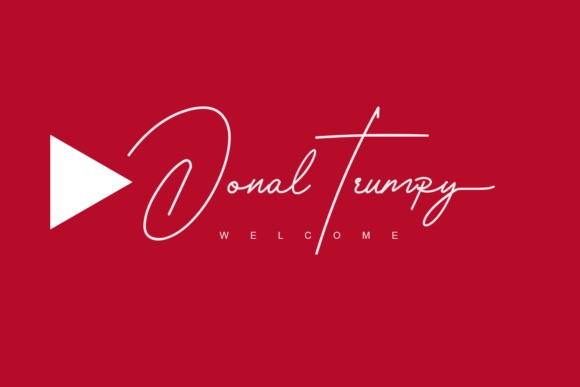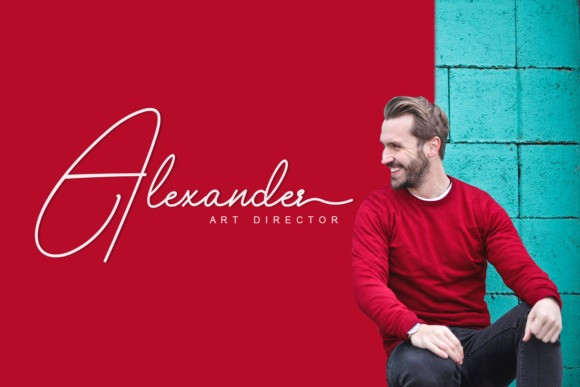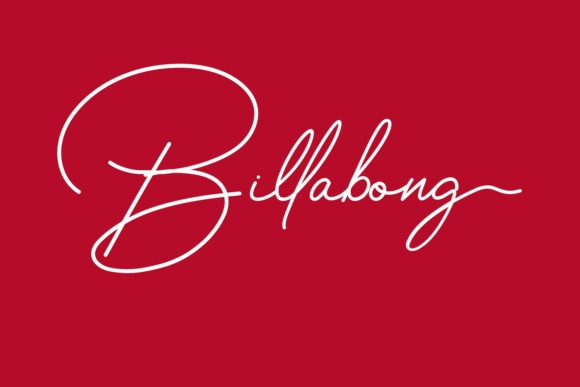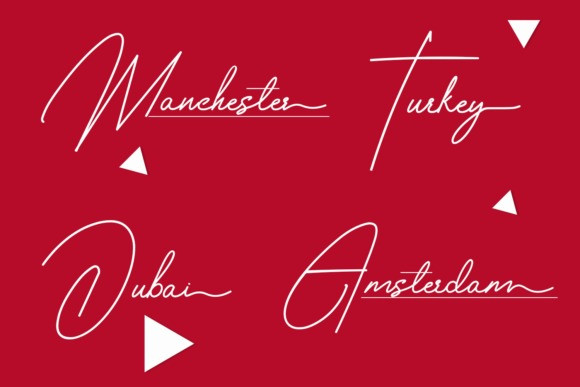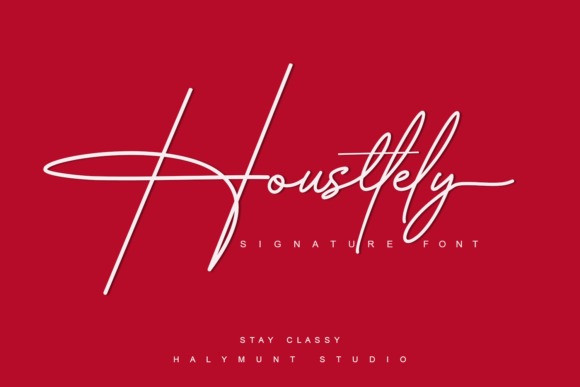
Housttely Signature Font
Say Hello Guy’s. Thank you for looking Housttely Font. This is an elegant new handwritten font! This font is made especially for those of you who need a touch of elegance and love to design your next project with perfect and amazing results. It’s designed and shared by Halymunt Studio. Housttely Signature is a thin and authentic script font with a unique vibe. Its modern and classy look are perfect for logos, branding, invitations, social media posts and every other design that needs a handwritten touch.